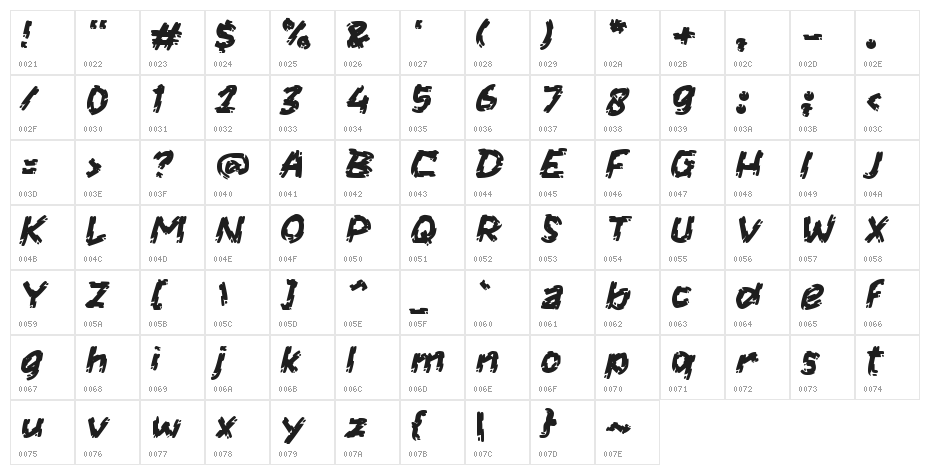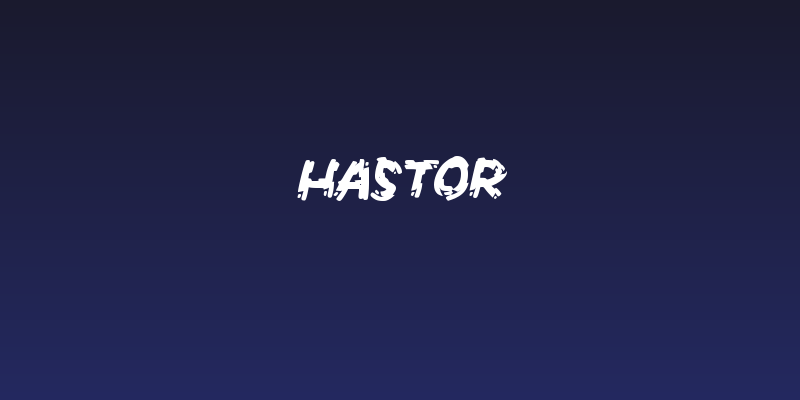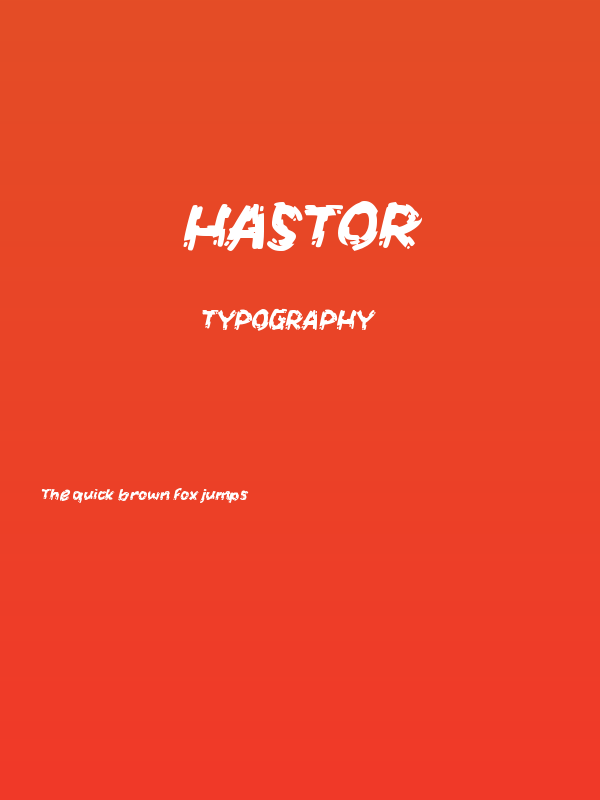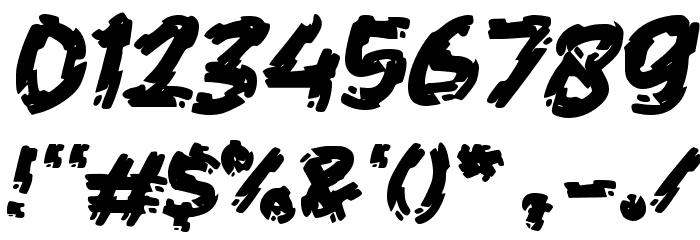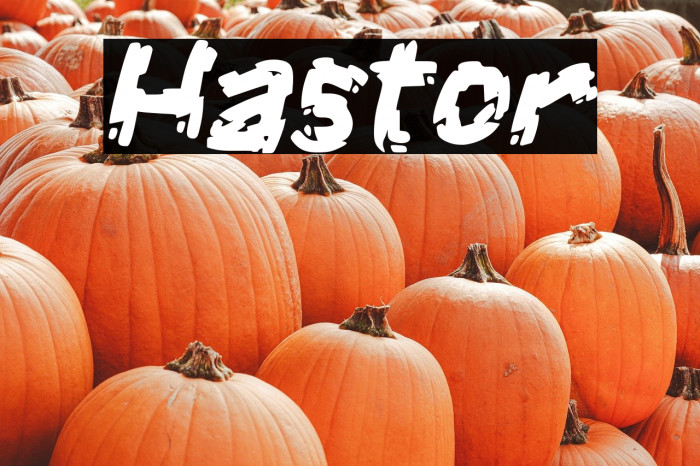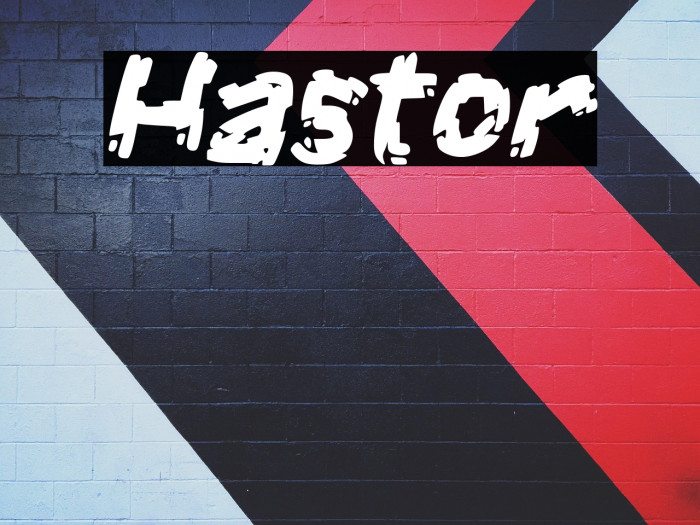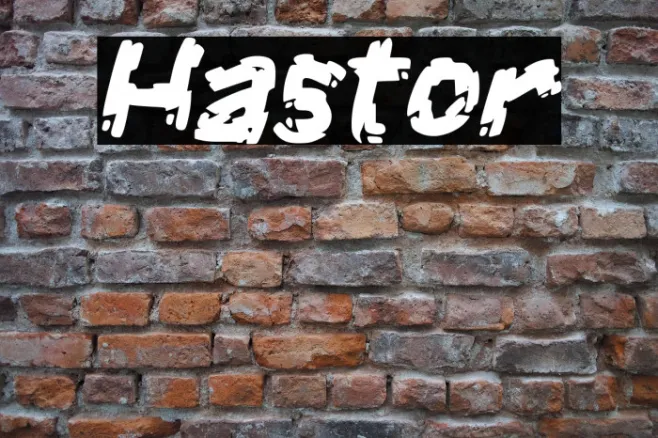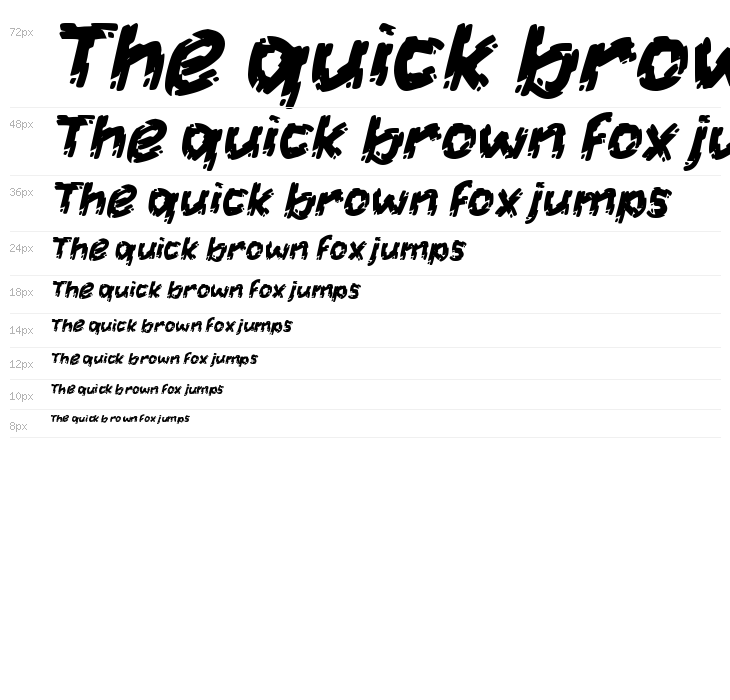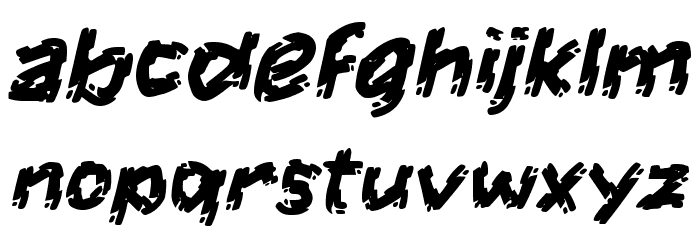
Hastor Font
Hastor Description
This font features a bold and dynamic style with a distressed, grunge-like appearance. The characters are heavily textured, giving them a rough and edgy look that suggests movement and energy. The uppercase and lowercase letters maintain a consistent design, with jagged edges and irregular strokes that create a sense of urgency and rawness. The numerals and special characters follow the same aesthetic, ensuring a cohesive visual experience. This font is ideal for projects that require a bold statement or an urban, rebellious vibe.
| Use Case | Logos, Posters, Headlines |
| Proposed Projects | Perfect for music album covers, streetwear branding, skateboarding graphics, or any project needing a bold, edgy look. |